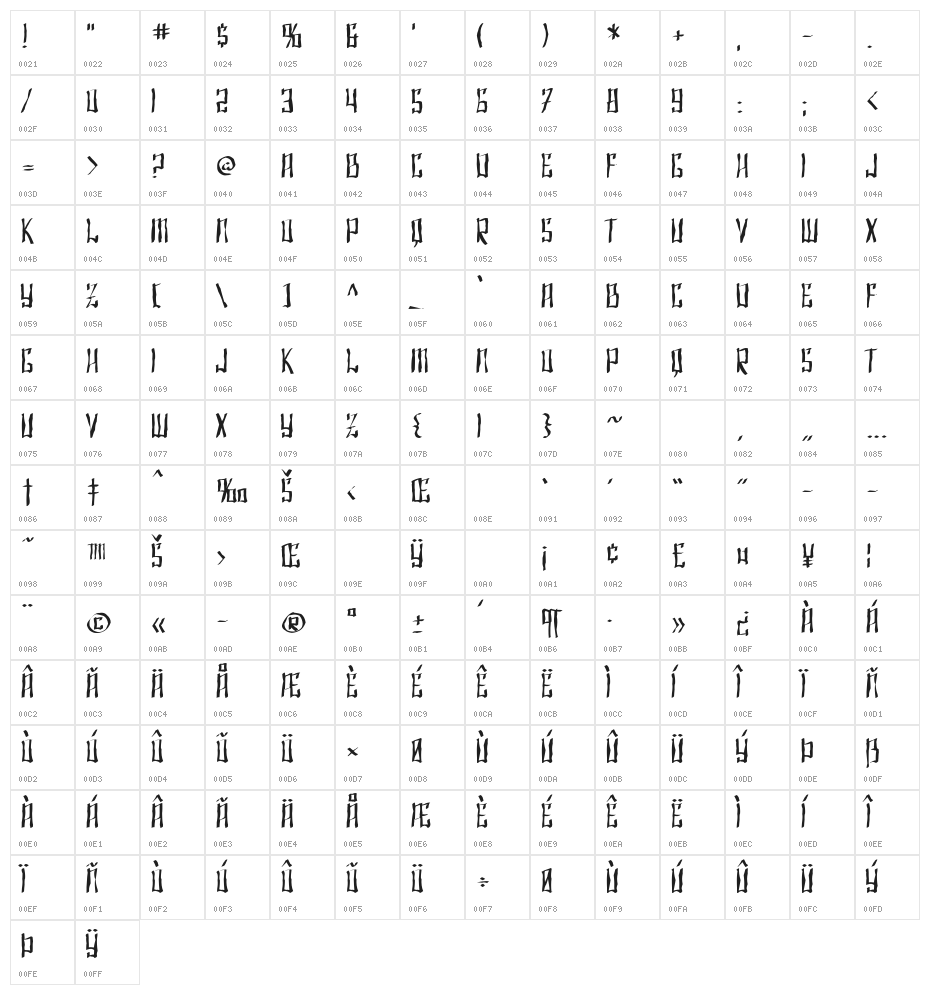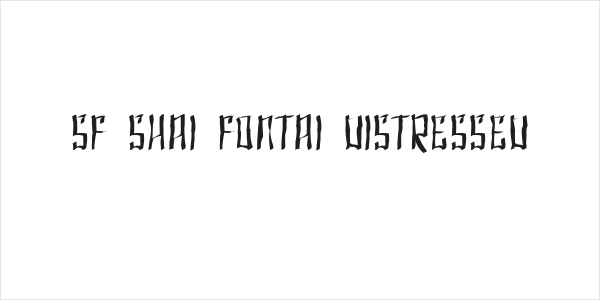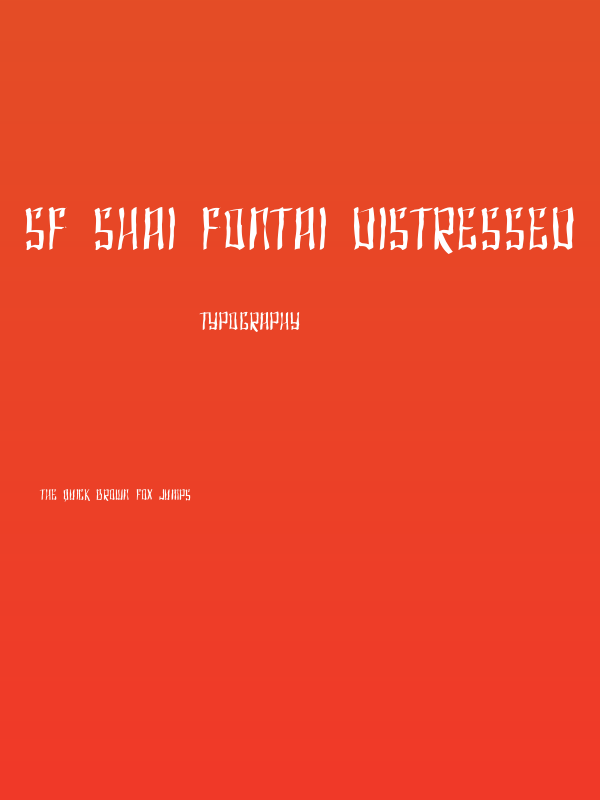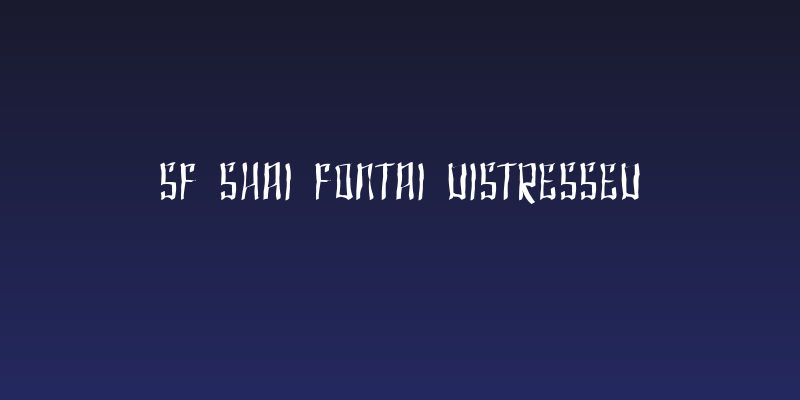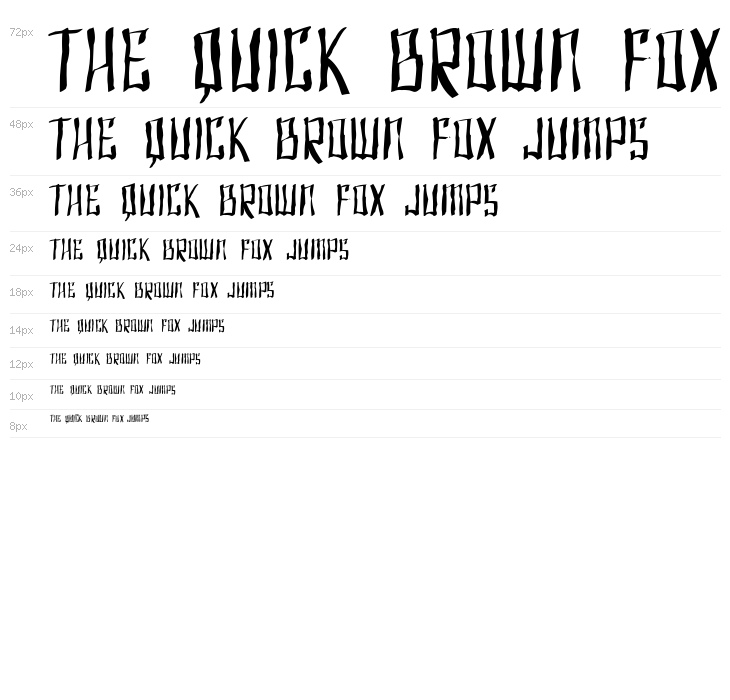
SF Shai Fontai Distressed Font
SF Shai Fontai Distressed Description
This font features a distressed, edgy style with a hand-drawn appearance. The characters are bold and angular, with irregular edges that give a rugged, worn look. The uppercase and lowercase letters maintain a consistent height, contributing to a cohesive visual impact. Numbers and special characters follow the same distressed aesthetic, making the font suitable for projects that require a raw, authentic feel. The font's unique style makes it stand out, ideal for creative and unconventional designs.
| Proposed Projects | Ideal for posters, album covers, branding for edgy products, or any project needing a raw, authentic feel. |